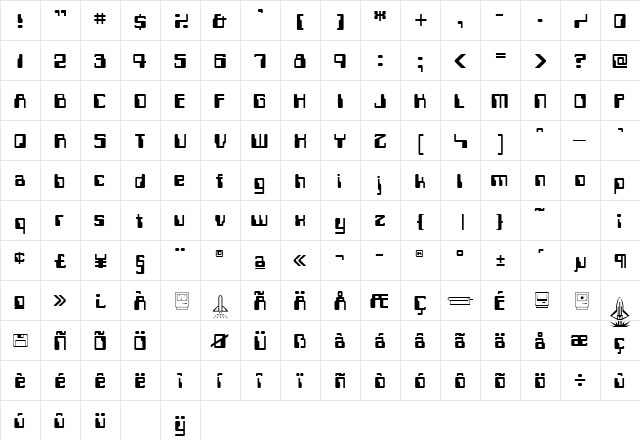
Computerfont Regular
Design Context for Computerfont Typeface
Computerfont is a composed and adaptable typeface that performs quietly and consistently across a wide range of design contexts.